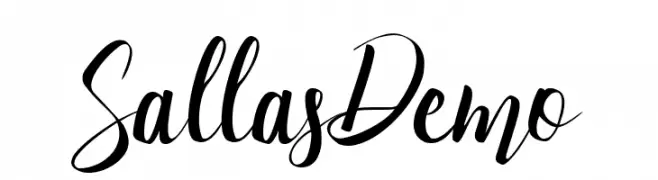
A modern, elegant script font with high contrast and flowing strokes.
An elegant, cursive font with intricate swirls and loops.
A dynamic and elegant script font with fluid, cursive strokes.
A flowing, cursive script font with elegant, connected characters.
A cursive, handwritten-style font with elegant loops and a sophisticated appearance.
A flowing, cursive script font with an elegant, handwritten style.
An elegant script font with decorative swirls and flourishes.
An elegant script font with a flowing, cursive style and sophisticated curves.
An elegant script font with flowing, cursive letters and a classic appearance.
An elegant script font with flowing, ornate cursive characters.